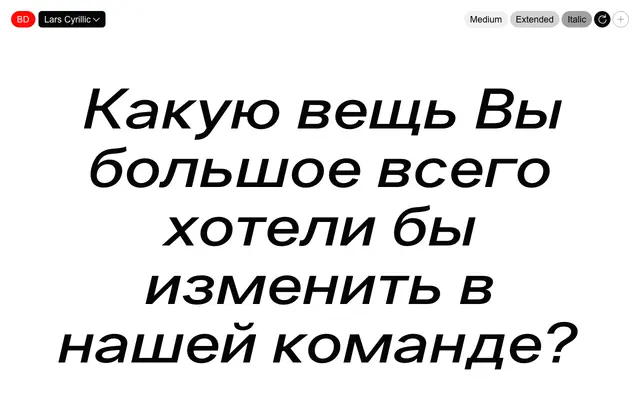
Lars Cyrillic
A Cyrillic extension of Bold Decisions' Lars grotesque, available in a medium weight with extended and italic variants.
Lars Cyrillic brings Cyrillic script support to the Lars family from Bold Decisions. The page lists a medium weight alongside extended and italic cuts, suggesting a focused but practical range for multilingual typesetting. The extension follows the grotesque character of the original Latin family.
The page references weights and styles typical of a grotesque sans-serif family, and the Cyrillic suffix indicates a script extension of an existing Latin grotesque. The naming and foundry context suggest a contemporary grotesque lineage.